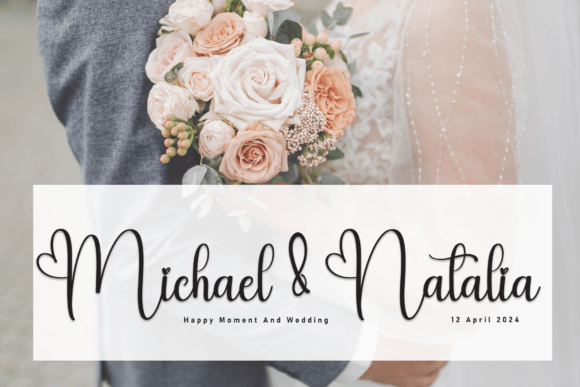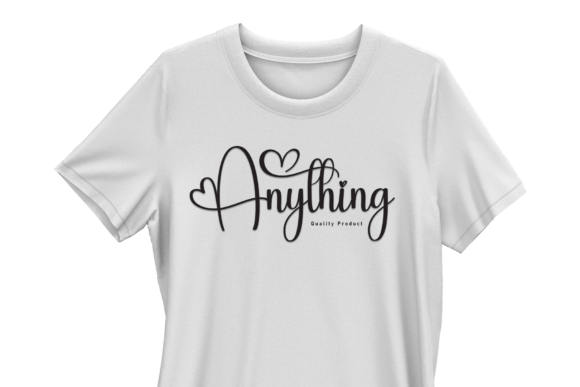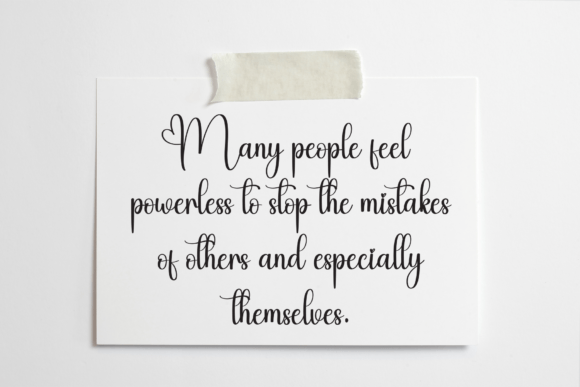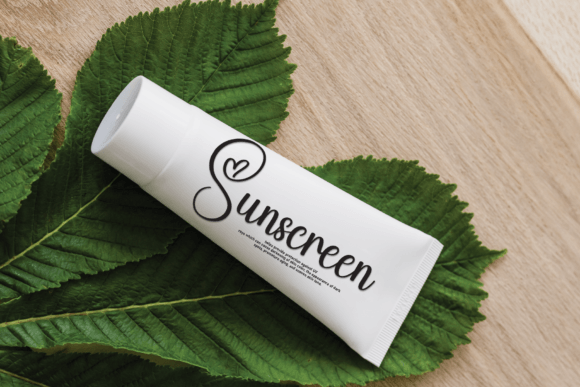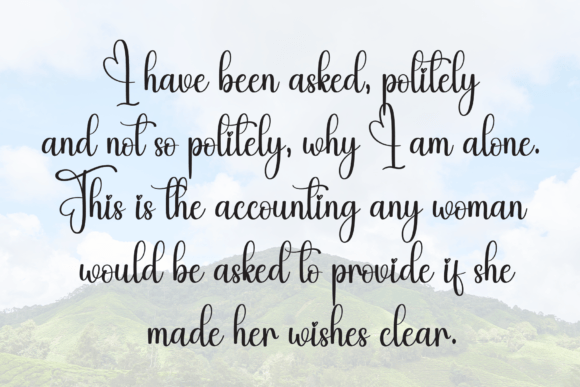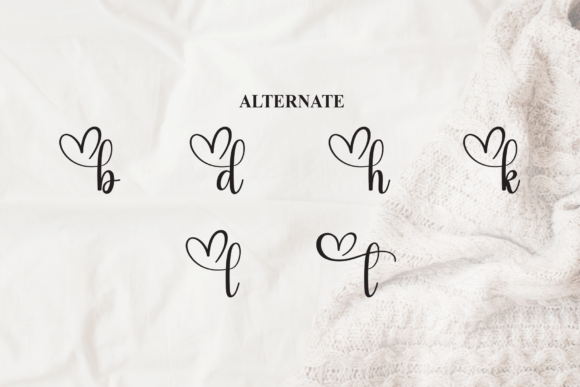
Wrap Your Design in Love with Best Blanket Font
There’s nothing quite like the feeling of stumbling upon a design element that speaks to your soul. It’s that ‘aha’ moment when everything clicks into place, and your creative vision starts to take shape. For designers, this moment often comes when we find the perfect font to complement our project. And, trust us, Best Blanket Font is one of those magical finds.
This sweet and romantic handwritten font is a game-changer for any design project. Its natural and unique style makes it incredibly versatile, allowing you to let your imagination run wild. Whether you’re crafting a wedding invitation, a birthday card, or a social media graphic, Best Blanket Font is sure to add a touch of warmth and personality to your design. And, as any designer knows, the right font can make all the difference in bringing your vision to life.
Key Features of “Best Blanket Font”
- Font Family: “Best Blanket Font” is a custom-designed font with a unique, hand-drawn style.
- Size: The font includes a range of weights, from Light to Bold, with 7 styles in total.
- Unique Characteristics: The font features a distinctive blend of handwritten and typographic elements, with intricate details and textures.
- Character Set: Includes a comprehensive set of characters, including uppercase and lowercase letters, numbers, and punctuation marks.
Designer Review: Best Blanket Font
Overall, I was excited to dive into the Best Blanket Font, but I have mixed feelings about its performance. ✨ Here are some things that work well:
- Unique aesthetic: The Best Blanket Font has a quirky, hand-drawn feel that sets it apart from other fonts.
- Good legibility: At larger sizes, the font is easy to read and doesn’t lose its charm.
- Customization options: The font comes with a range of styles and weights, making it versatile for different design applications.
However, there are some limitations that hold me back from fully endorsing the Best Blanket Font. ⚠️ Here are some things to consider:
- Size limitations: At smaller sizes, the font can become difficult to read and starts to lose its unique charm.
- Letter spacing issues: In some cases, the letter spacing can be inconsistent, making the text look a bit awkward.
- Lack of bold weights: While the font has a range of styles, it could benefit from more bold weights to make it more suitable for headlines and titles.
Overall, the Best Blanket Font is a solid choice for designers looking for a unique, hand-drawn feel. However, it’s not without its limitations, and I would recommend it for smaller-scale designs or projects where the font can be used at larger sizes.
The Best Blanket Font is ideal for use in branding, marketing materials, and social media graphics. To get the most out of it, try combining it with bold colors and simple graphics.
- Marketing materials (e.g. flyers, brochures)
- Social media graphics (e.g. Facebook, Instagram)